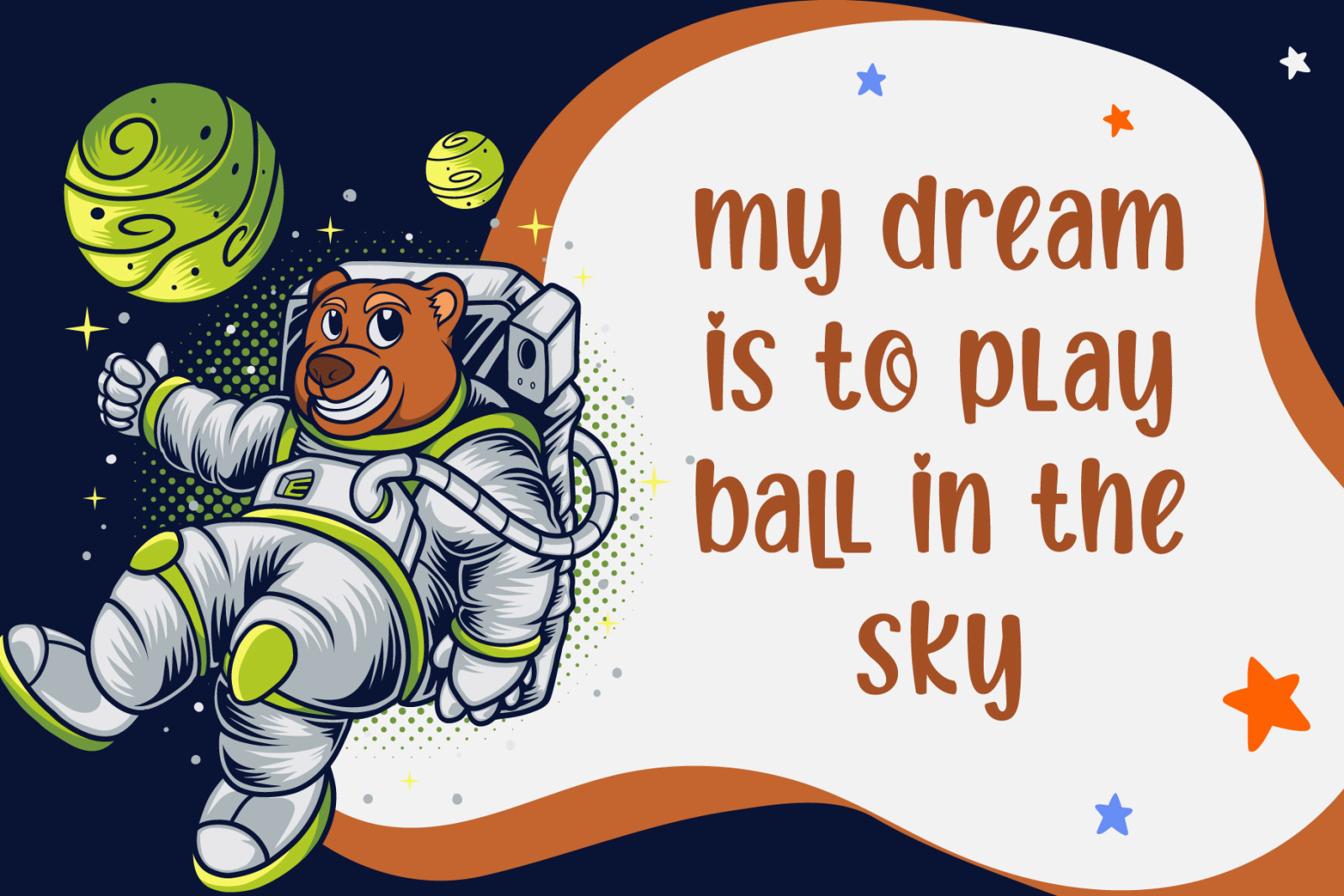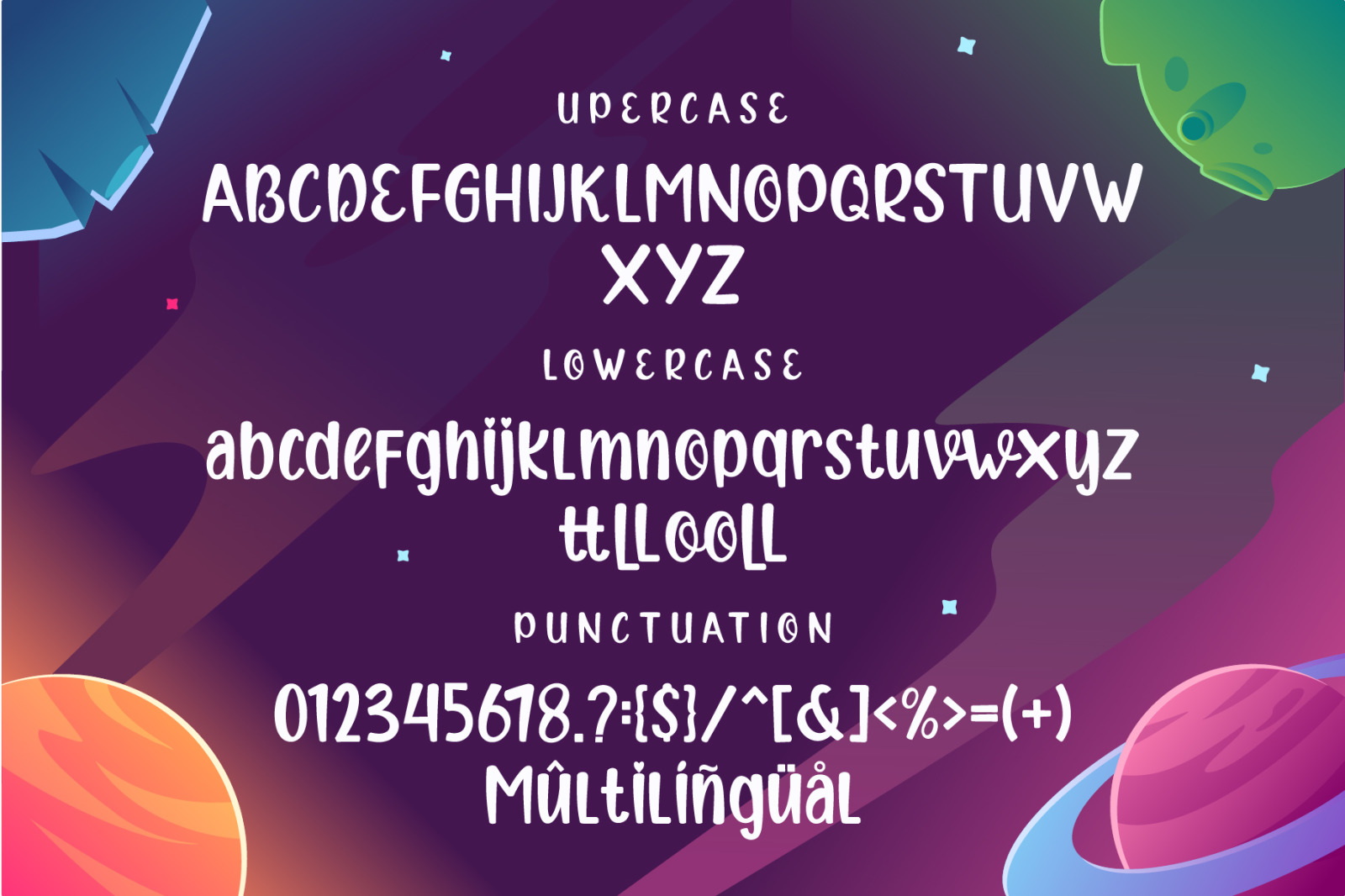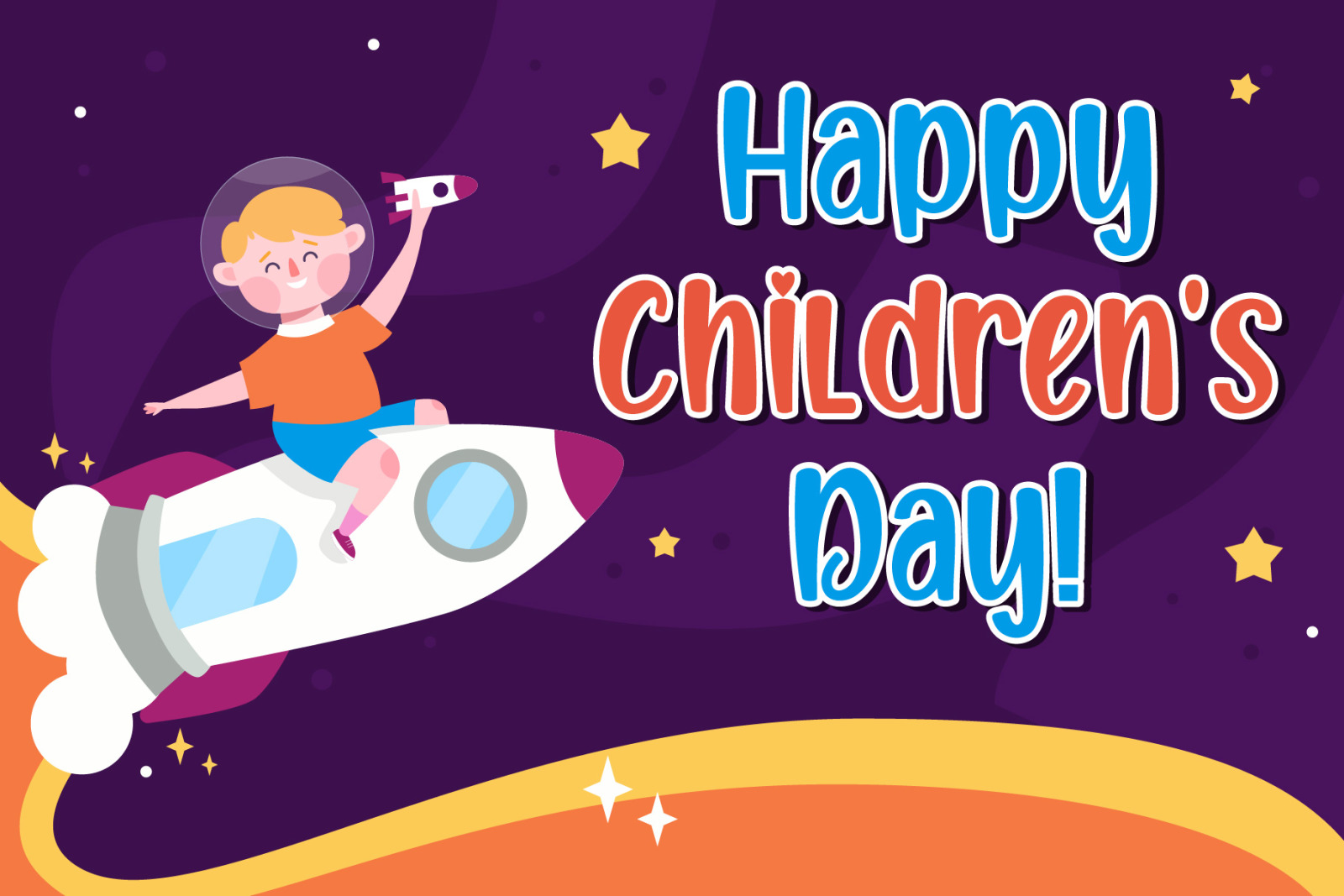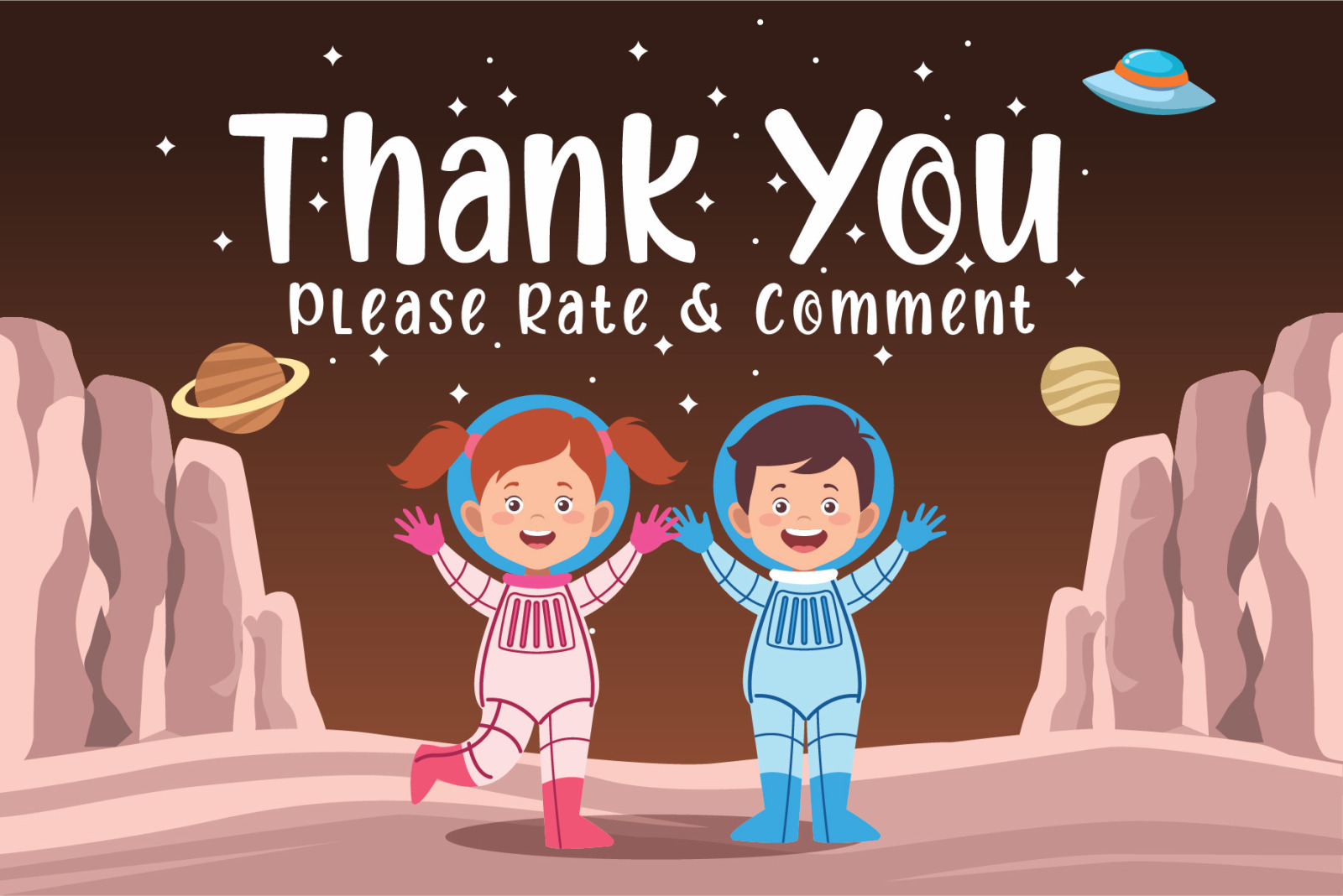
Amsteroid Space Font
Amsteroid Space is a display font. These fonts can be used for products such as food banners, restaurants, crafts, product packaging, quotes, product designs, craftsmen, labels, photography, watermarks, logos & branding. Everything can be accessed using software that supports Opentype, such as Adobe Indesign, Adobe CS Illustrator, Adobe Photoshop CC, and Corel Draw.